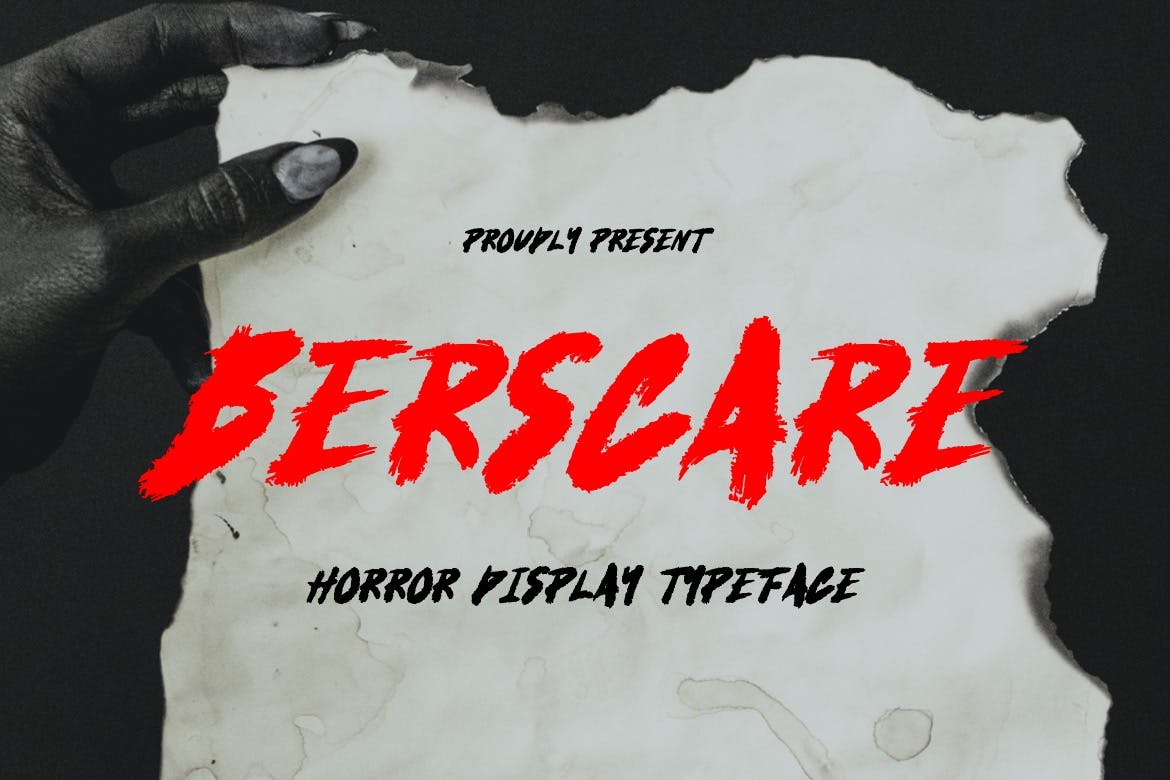
Berscare - Horror Font
Berscare - Horror Font is perfect for horror movie posters, spooky Halloween graphics, dark gaming industry materials, thriller book covers, haunted attraction signage, gothic branding projects, scary event promotion, macabre artwork design, and sinister advertising campaigns.
What makes Berscare - Horror Font exciting is its spine-chilling character that masterfully evokes fear and suspense through menacing letterforms and disturbing visual elements that create instant psychological impact. This terrifying typeface features jagged edges, ominous details, and unsettling proportions that tap into primal fears and dark emotions. The font's sinister presence and horror authenticity make it ideal for brands and projects that need to communicate fear, mystery, and supernatural dread through typography that genuinely frightens audiences and creates unforgettable visceral reactions in horror entertainment and dark artistic expressions.
Berscare - Horror Font family includes multiple frightening variations: Regular, Bold, Blood, Shadow, Distressed, and Nightmare versions. Each style maintains the distinctive horror aesthetic while offering different levels of terror intensity and visual effects, providing designers with comprehensive tools for creating authentic horror typography systems and spine-chilling design applications that maximize fear factor.
Creative professionals choose Berscare - Horror Font for its ability to convey genuine fear and supernatural dread through typography alone. The menacing character forms and disturbing visual elements create immediate psychological response that resonates with viewers' deepest fears. Its terrifying presence works exceptionally well across diverse applications from intimate horror game interfaces to large-scale haunted attraction graphics.
Whether used for independent horror film promotion or established entertainment franchises, Berscare - Horror Font consistently delivers authentic horror typography that resonates with audiences seeking genuine fear experiences, supernatural thrills, and the darkly compelling appeal of professional horror entertainment and macabre artistic expression.